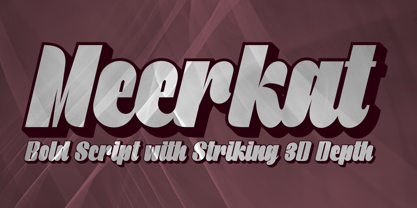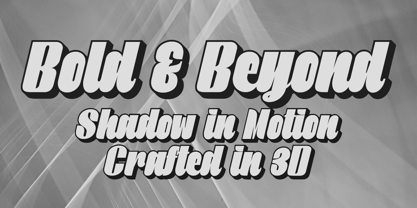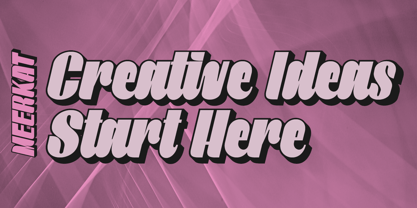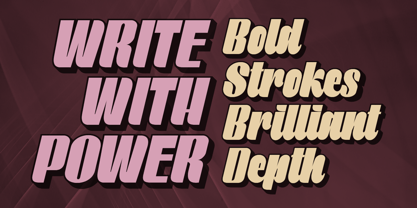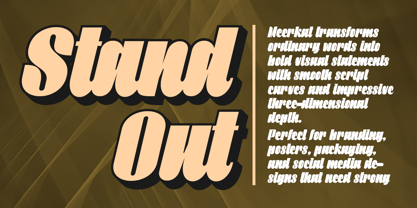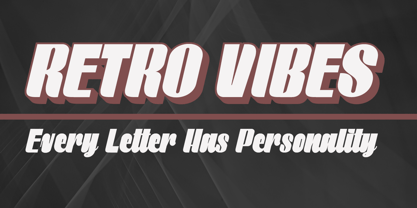
Meerkat
by Artisan Studio
The Meerkat Font Family was designed by Roiyani Teungku and published by Artisan Studio. Meerkat contains 2 styles and family package options. More about this family
Meerkat
Meerkat is a bold script display font that combines smooth handcrafted lettering with a striking 3D shadow effect, creating a strong sense of depth and dimension. Its thick strokes and dynamic curves make every word appear vibrant, energetic, and impossible to ignore.
Designed for creators who want maximum visual impact, Meerkat is perfect for logos, branding, product packaging, posters, headlines, signage, apparel, stickers, merchandise, social media graphics, YouTube thumbnails, and retro-inspired designs. The built-in dimensional style gives your typography a bold, premium look without sacrificing readability.
Whether you're building a memorable brand identity or creating eye-catching promotional graphics, Meerkat delivers confidence, creativity, and personality in every letter. Its bold script style and three-dimensional appearance make it an excellent choice for projects that demand attention and leave a lasting impression.
Designers: Roiyani Teungku
Foundry: Artisan Studio